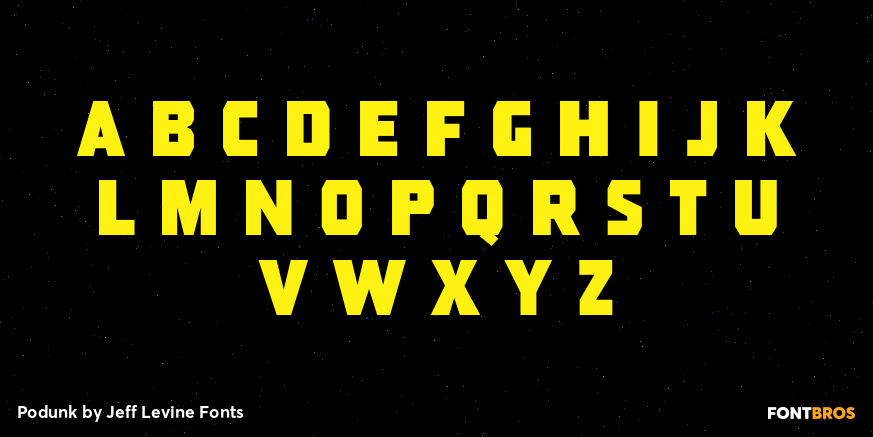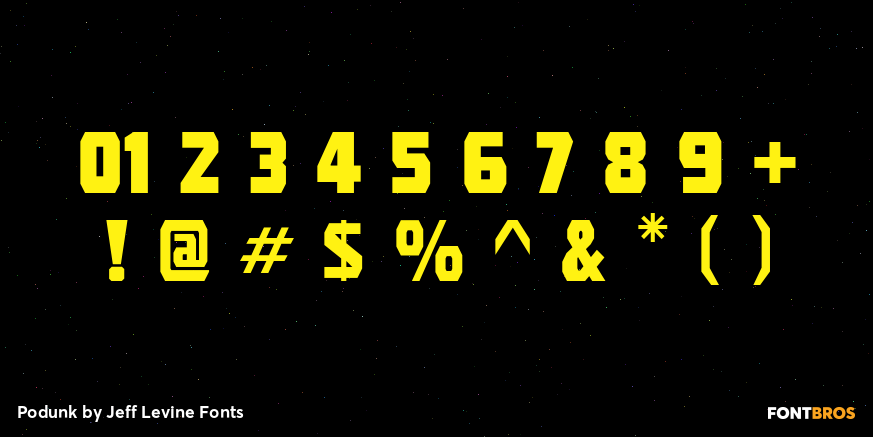
Podunk
The term "podunk" usually refers to a small, insignificant town.
In this case, Podunk JNL refers to a bold and brash font that resembles cut-paper characters.